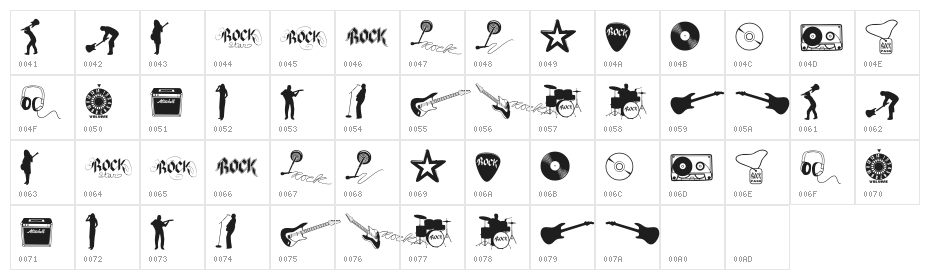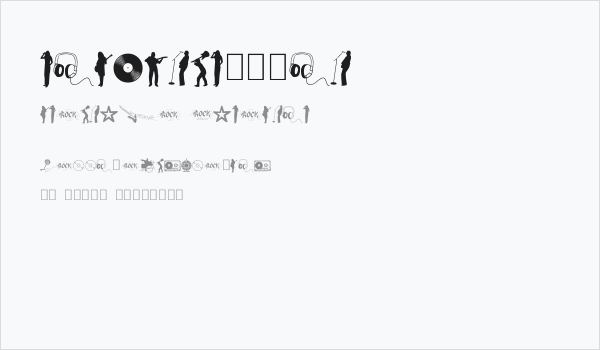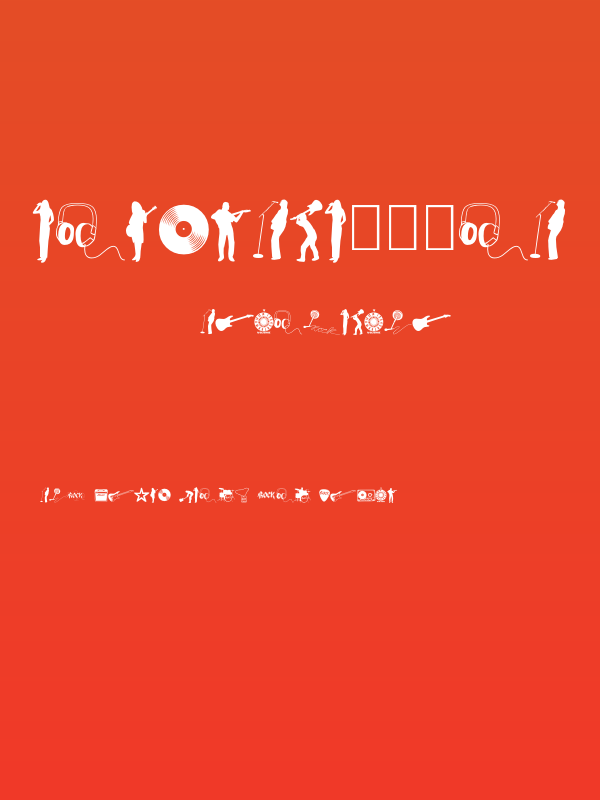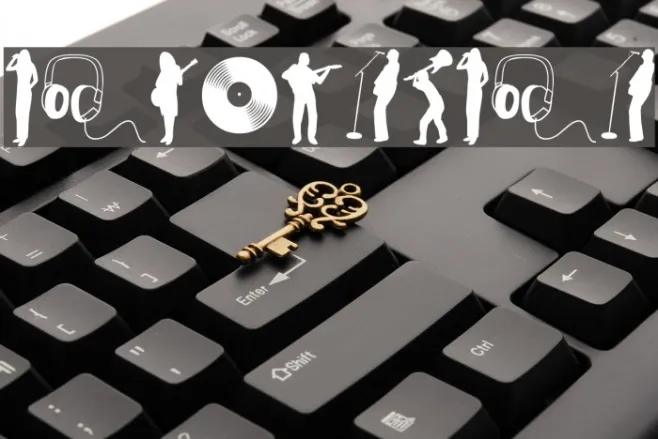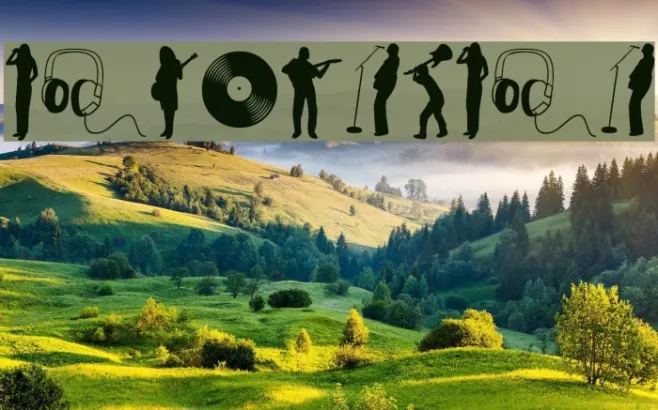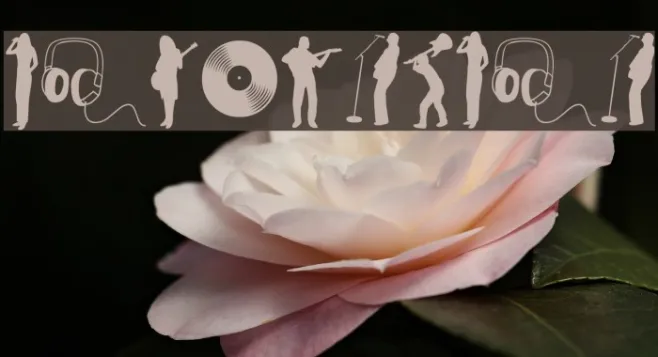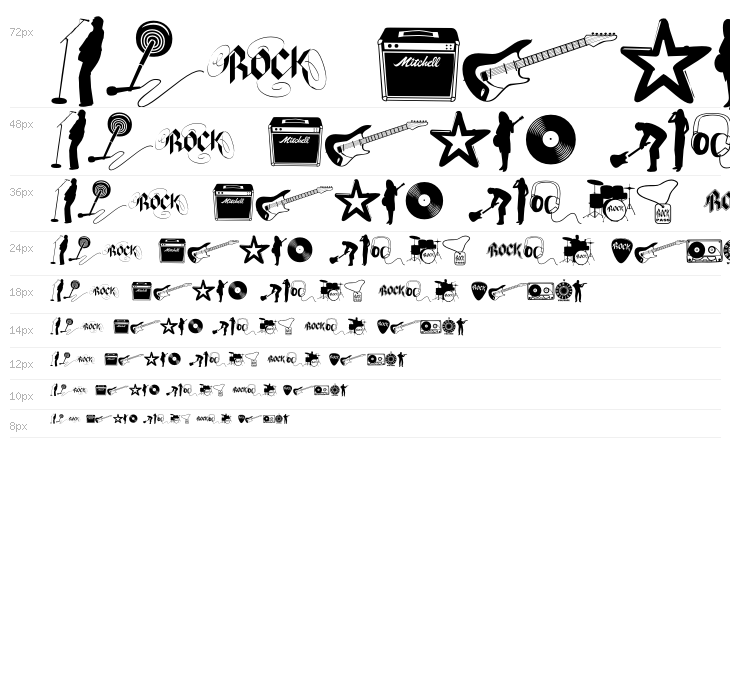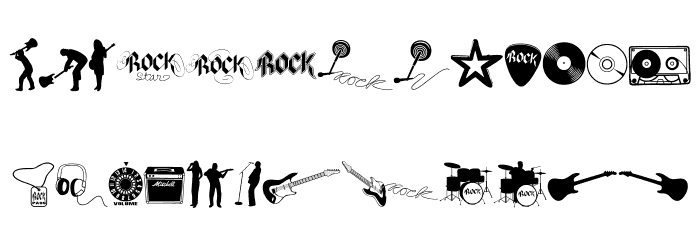
RockStar2.0OT Font
| Caso d'uso | Logos, Posters, Merchandise |
| Progetti proposti | Ideal for music event posters, album covers, band merchandise, and any design project that requires a rock and roll aesthetic. |